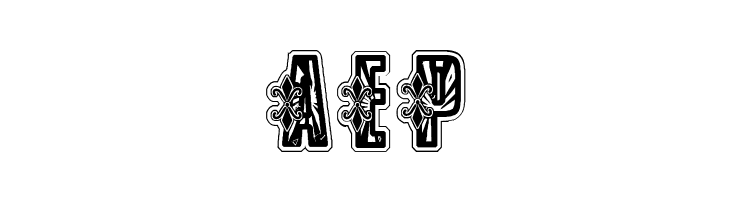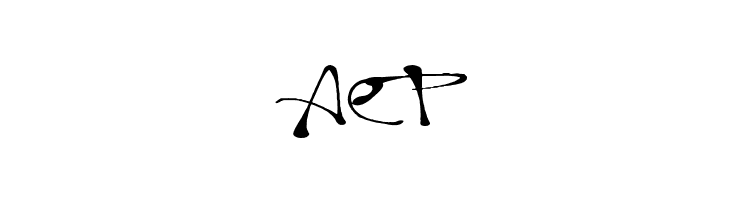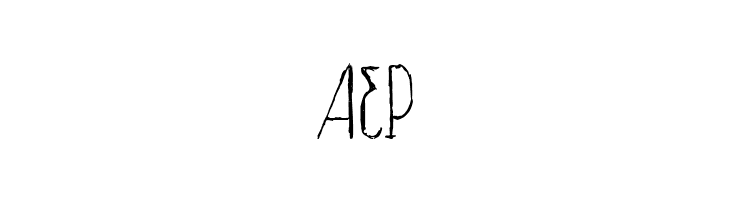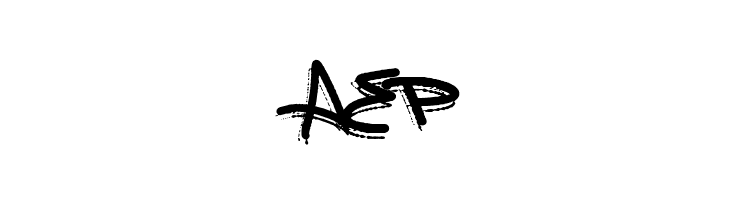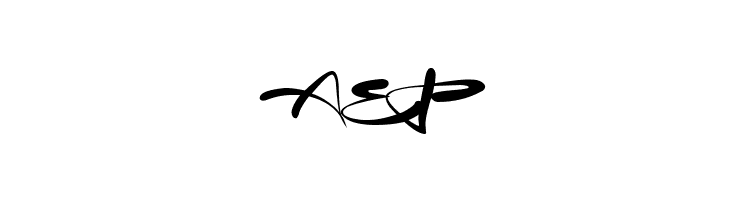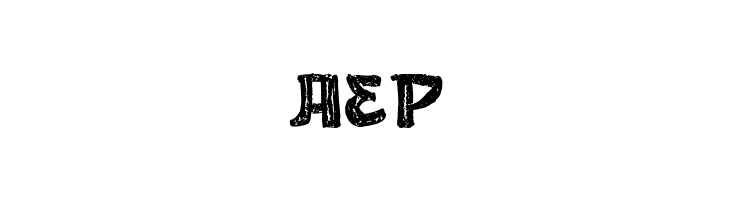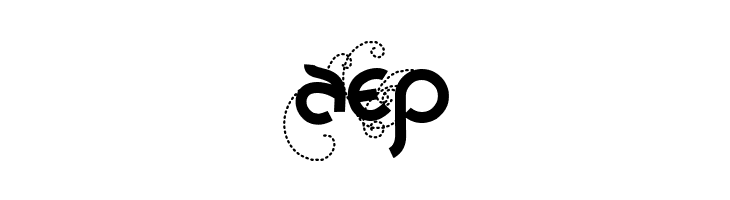
An ornate and decorative font with elegant flourishes and embellishments.
An artistic and dynamic font with flowing, cursive-like strokes and bold, expressive characters.
A casual, handwritten cursive font with elegant, flowing letters.
A bold, textured font with a hand-drawn, artistic style.
A bold, graffiti-inspired font with a rough, hand-drawn appearance.
A dynamic, handwritten-style font with artistic flair.
A bold, distressed font with a rough, hand-painted style.
A distressed, hand-drawn font with a vintage and rustic appeal.